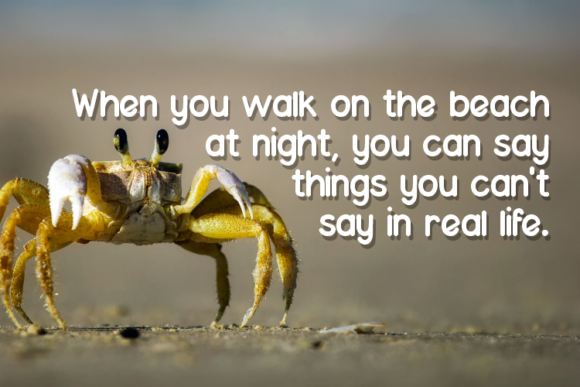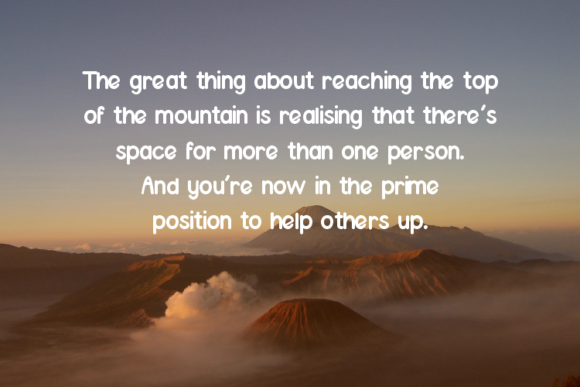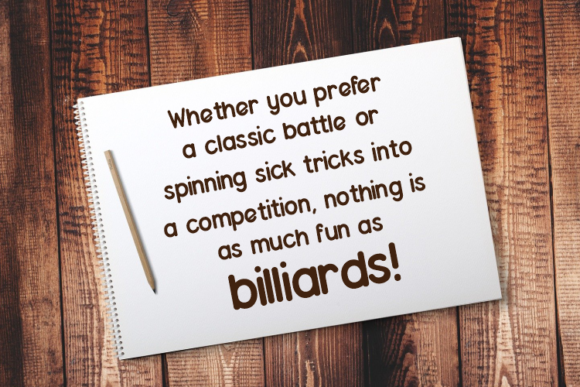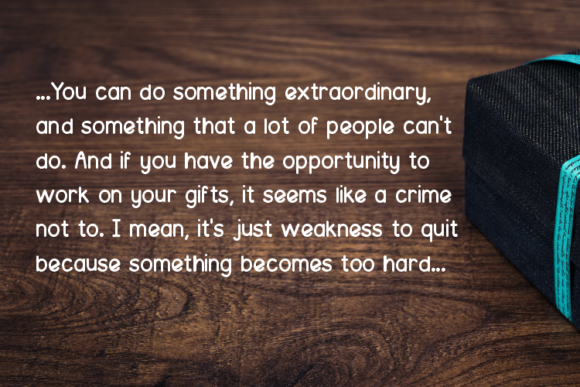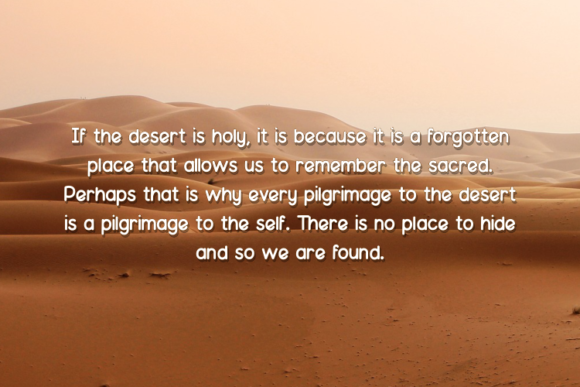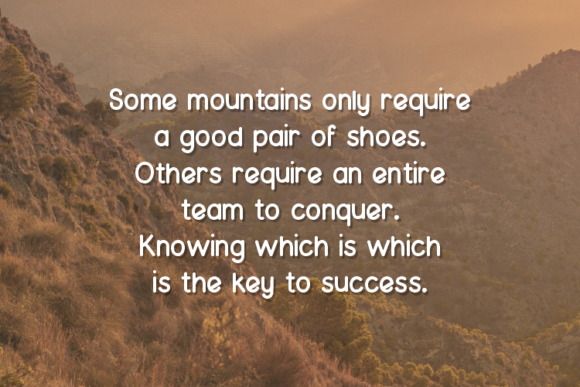
Discover the Magic of Riordan Font
As a designer, have you ever found yourself staring at a blank canvas, struggling to bring your creative vision to life? We’ve all been there – the blank page, the cursor blinking away, waiting for inspiration to strike. But what if I told you that the perfect spark was just a font away?
Enter the Riordan Font, a charming, handwritten font that’s sure to breathe new life into your creative projects. With its simple yet adaptable design, Riordan Font is the ultimate design resource for anyone looking to elevate their work. Whether you’re working on a high-quality branding project or a fun, free download, Riordan Font is the perfect companion to help you achieve your design goals.
So why is Riordan Font so valuable for designers? For starters, its transparent background makes it easy to layer and combine with other design elements. Plus, its high-quality design ensures that your creations will look professional and polished, every time.
Key Features of Riordan Font
- Font size: 20-300 points, with scalable resolution for optimal legibility
- Unique characteristics include a modern, elegant design with subtle flair
- Perfect for use in logos, branding, and other design elements
Honest Review: Riordan Font
As a designer, I’m always on the lookout for high-quality design resources that can elevate my creative projects. The Riordan Font is one such resource that caught my attention, and I’m excited to share my thoughts on it.
What works well: ✨ The Riordan Font offers a unique and elegant design that’s perfect for creating visually appealing content. The font is available for free download, making it an excellent choice for designers working on a budget. The transparent background feature allows for seamless integration with any design element, making it a valuable asset for creative projects.
What doesn’t work well: ⚠️ While the Riordan Font is a great resource, it’s limited in its versatility. The font is best suited for titles, headings, and short blocks of text, making it less suitable for large bodies of text.
Overall, I’m impressed with the Riordan Font’s quality and design. It’s a fantastic addition to any designer’s toolkit, especially for creative projects requiring a touch of elegance. While it has its limitations, the font’s unique design and free download make it a worthwhile resource to have.
- Unique and elegant design
- Perfect for titles, headings, and short blocks of text
Riordan Font
Designing with Riordan Font in Canva
Tips for Getting the Most Out of Riordan Font
To get the most out of Riordan Font, use it in conjunction with other design elements, such as images and graphics. You can also experiment with different font sizes, colors, and styles to create unique and eye-catching designs.
Common Use Cases for Riordan Font
Riordan Font is commonly used in a variety of design projects, including brochures, flyers, and business cards. It’s also a popular choice for web design and digital marketing materials.
Alternatives to Riordan Font
Great Vibes is a high-quality, elegant script font perfect for creative projects. It features a beautiful, flowing design that’s ideal for headings and titles. Great Vibes is free to download and offers a transparent background, making it easy to use in various design contexts.
When to use: Great Vibes is suitable for creative projects, such as wedding invitations, branding, and advertising. It’s also a great choice for designers who want to add a touch of elegance to their design.
Comparison to Riordan Font: Great Vibes has a more elegant and refined look compared to Riordan Font. While Riordan Font has a bold and playful feel, Great Vibes is more subtle and sophisticated.
Alex Brush is a beautiful, handwritten font that’s perfect for creative projects. It features a unique, brush-like design that adds a touch of personality to any design. Alex Brush is available for free download and offers a transparent background, making it easy to use in various design contexts.